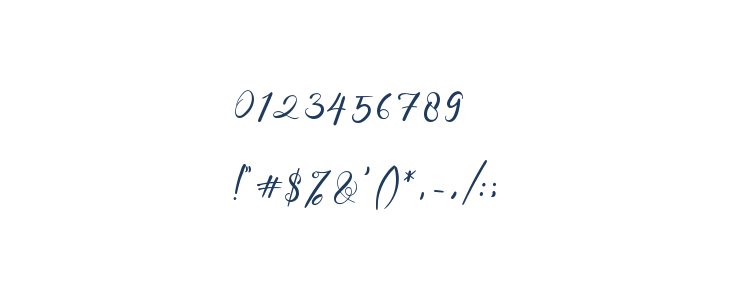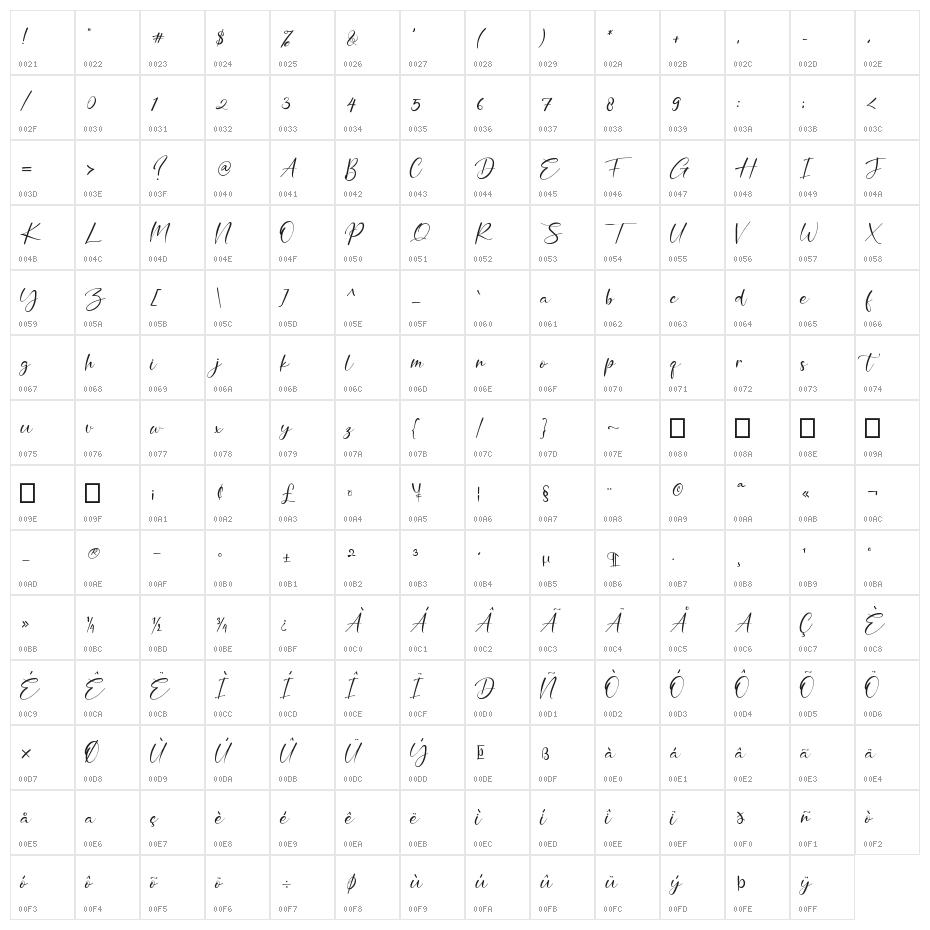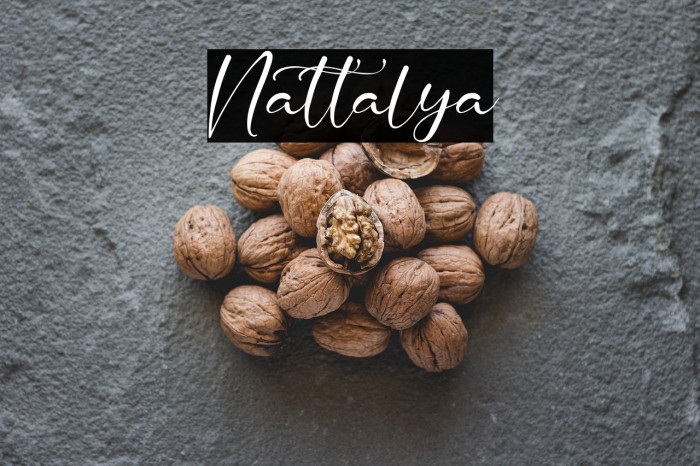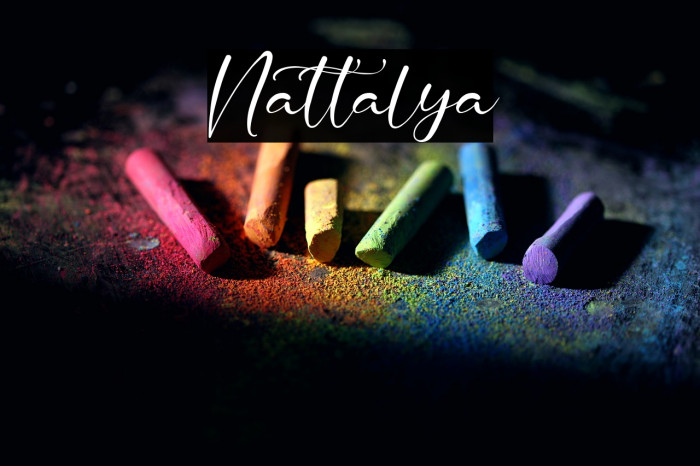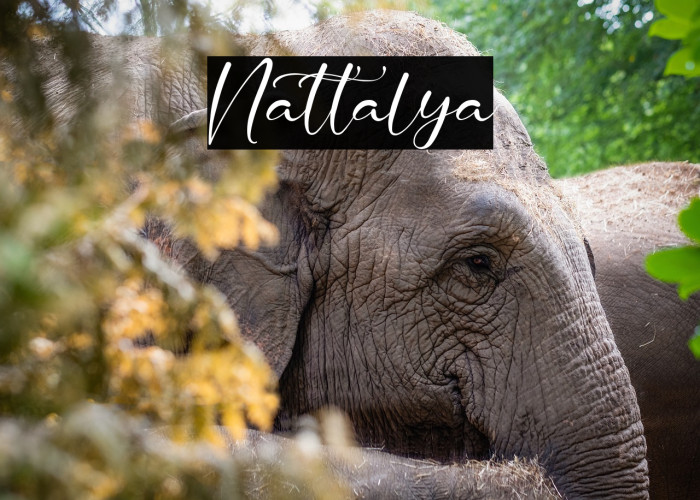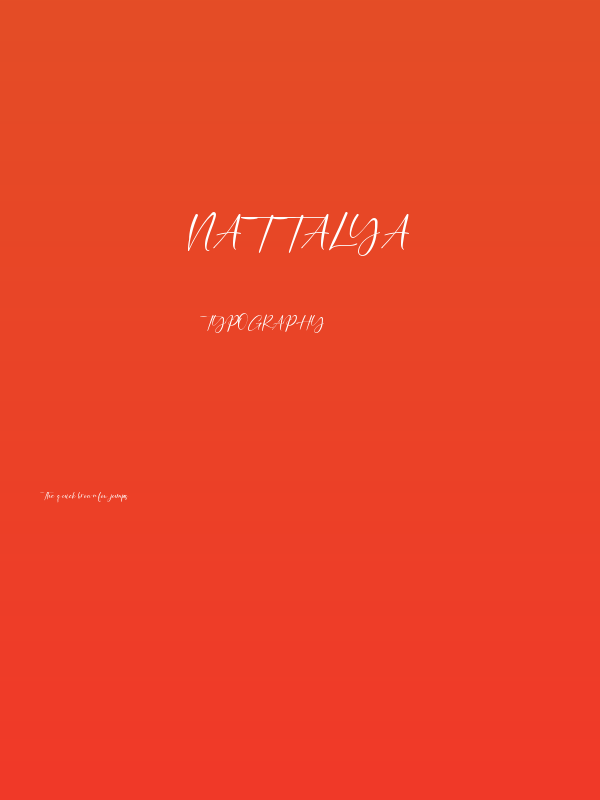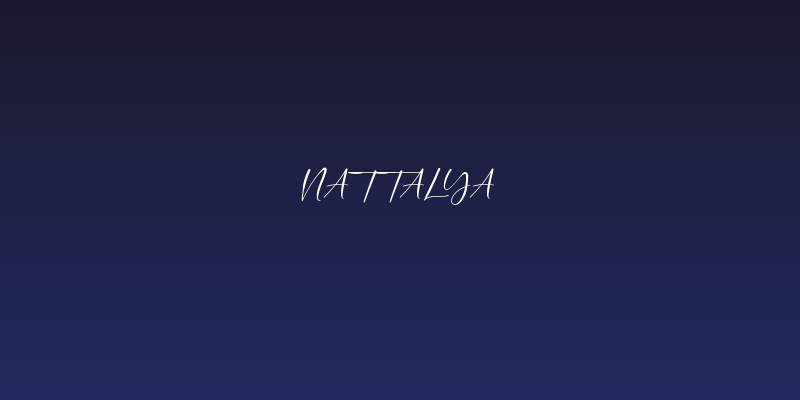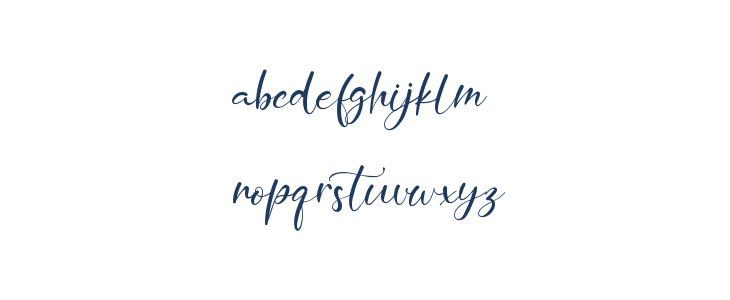
Nattalya Font
Nattalya Description
This elegant script font features a flowing, cursive style with a modern touch. The uppercase letters are characterized by sweeping, dramatic flourishes, while the lowercase letters maintain a more subtle, yet equally graceful appearance. The numerals and special characters are designed to complement the overall aesthetic, ensuring a cohesive look across all text. The font's strokes vary in thickness, providing a medium contrast that enhances readability while maintaining its decorative appeal. This font is perfect for projects that require a touch of sophistication and elegance.
| Proposed Projects | Ideal for wedding invitations, branding, greeting cards, and elegant logo designs. |